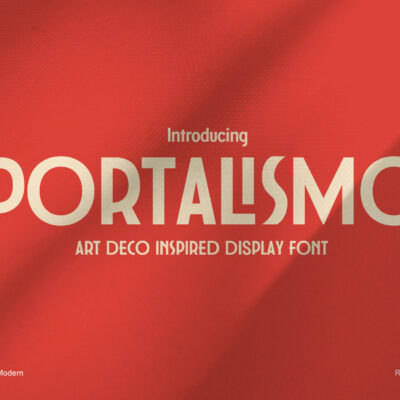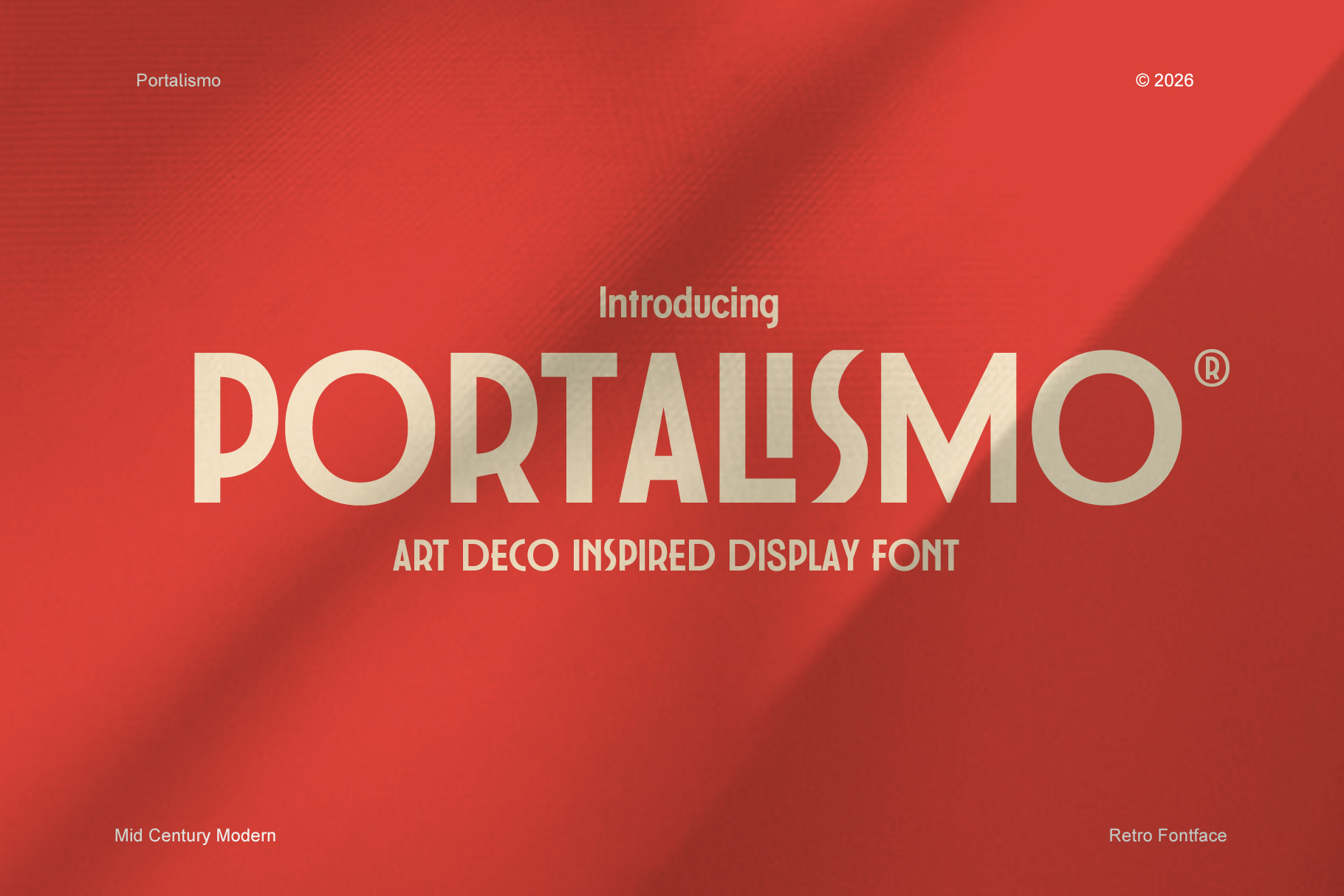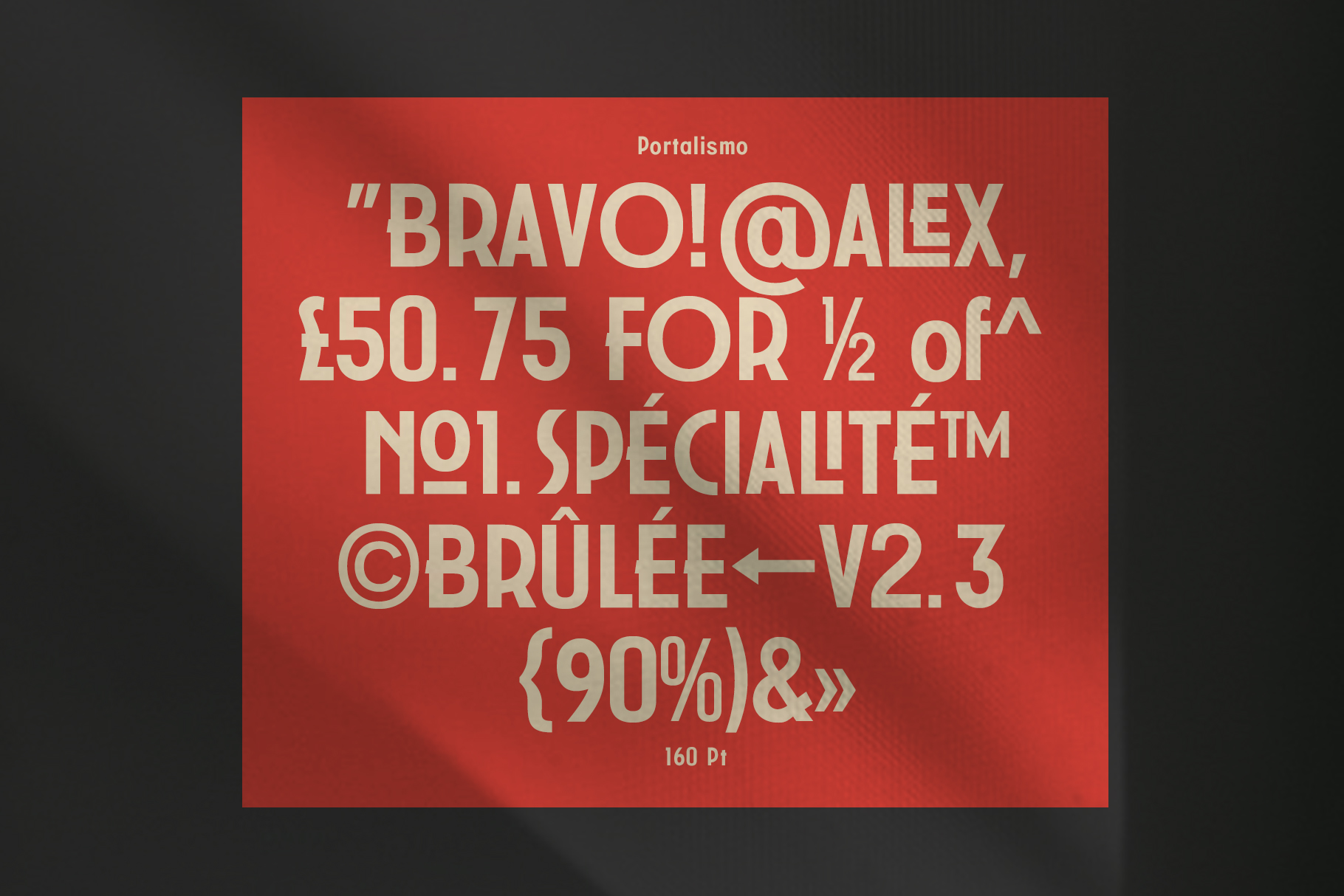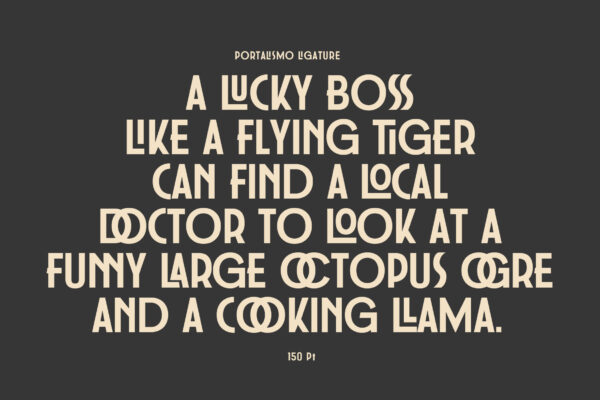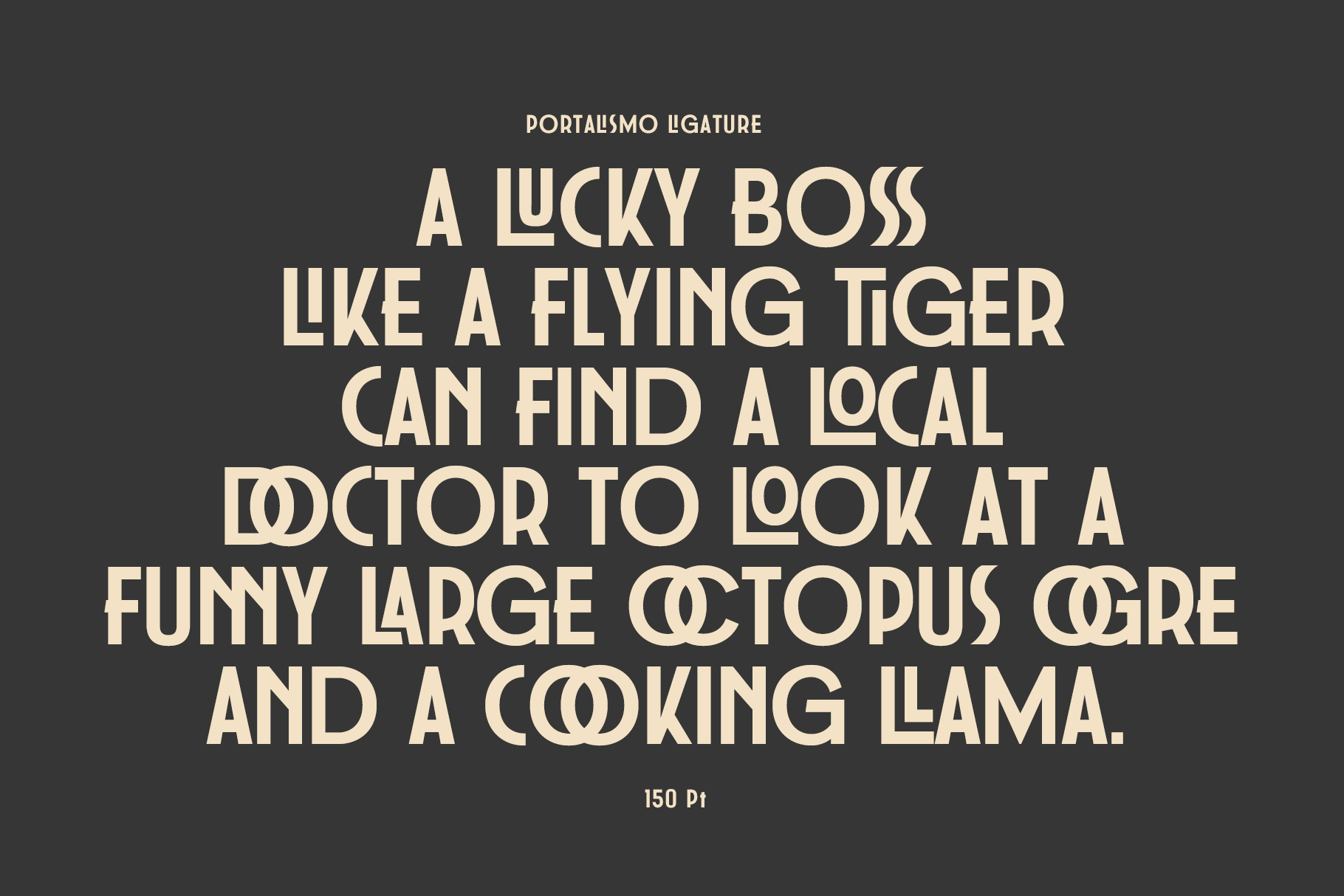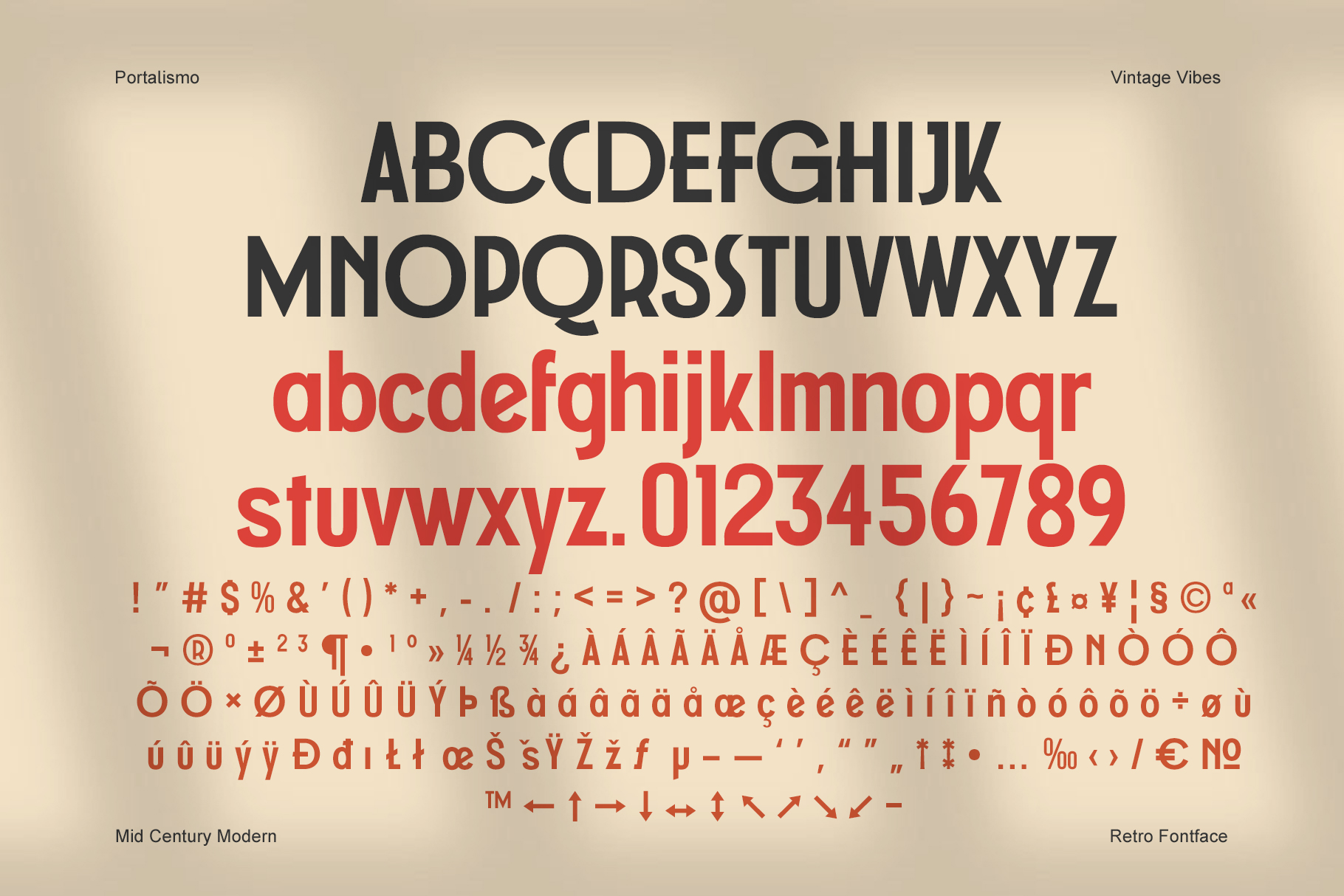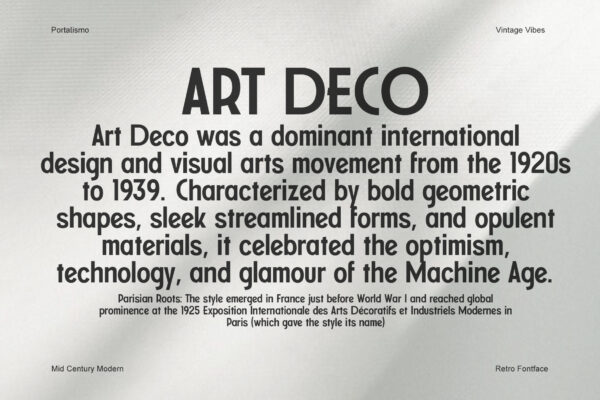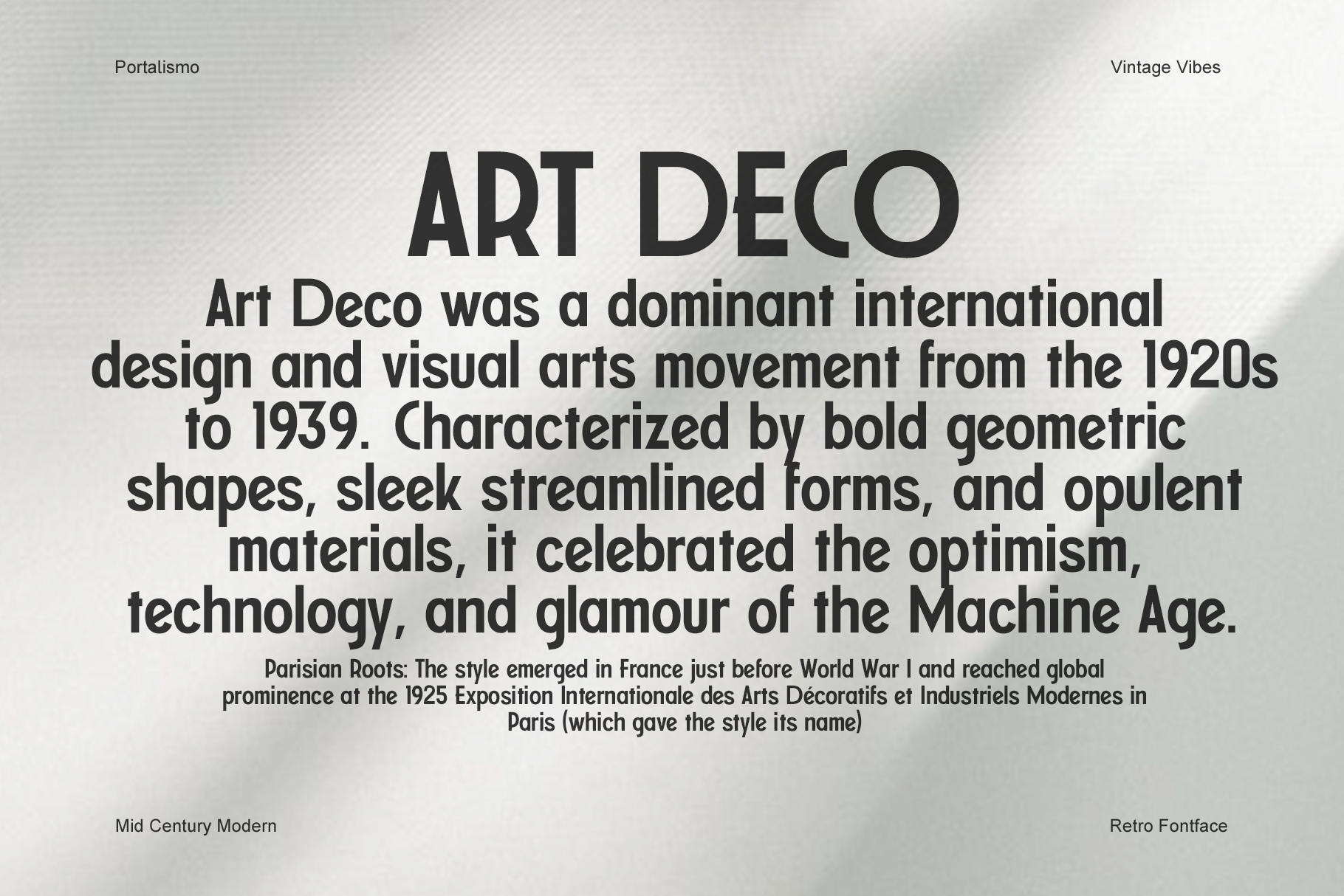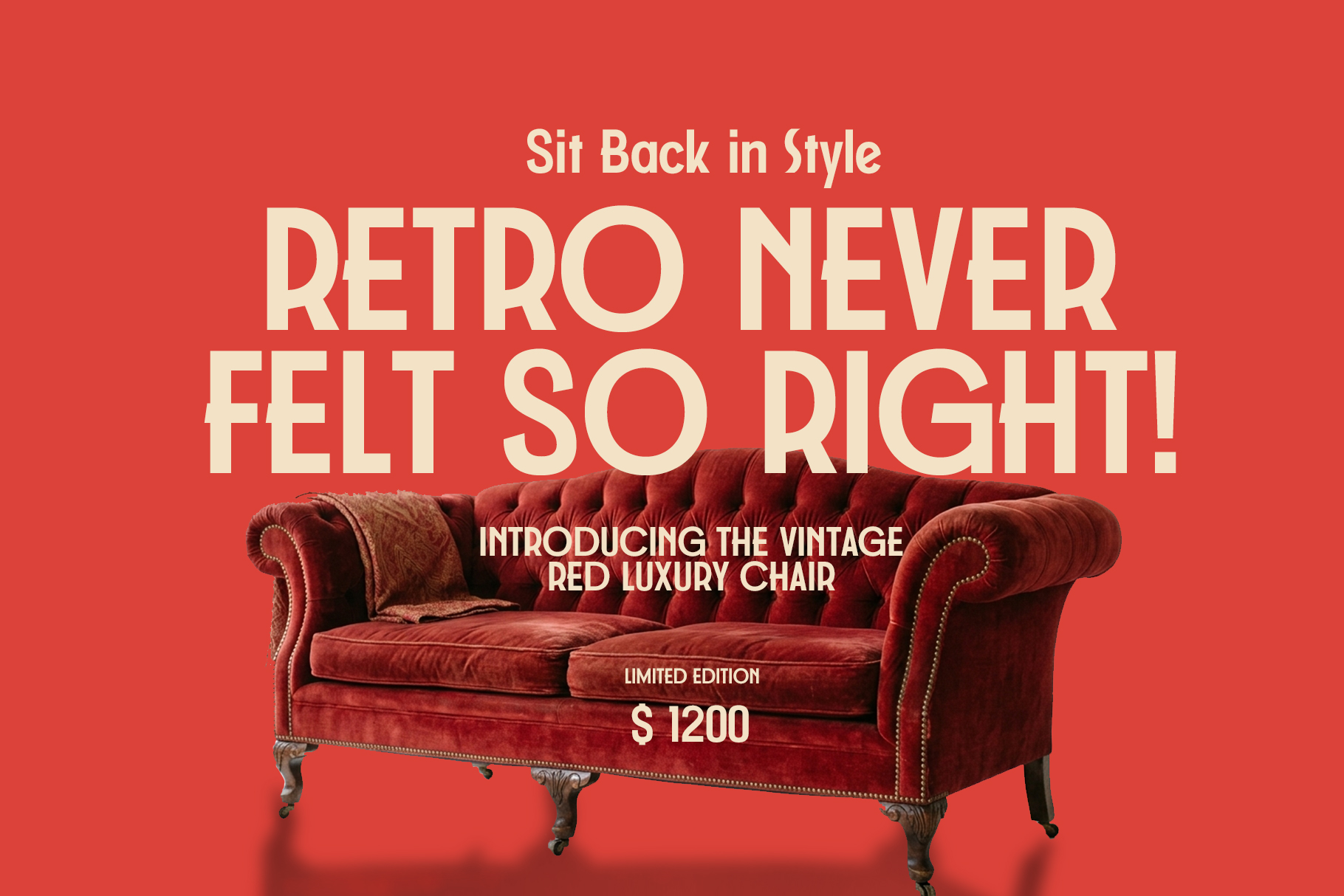
Portalismo is an Art Deco-style display font with a vintage touch. Its tall, geometric, and decorative letterforms are perfect for bold designs. This font is suitable for retro posters, logos, editorial titles, packaging, album covers, restaurant branding, event design, and social media content. Several ligatures help give it a more unique look.